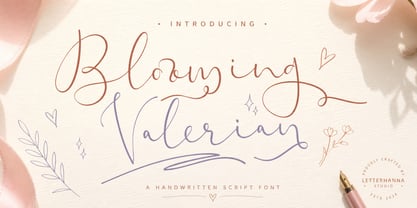
Blooming Valerian
by Letterhanna Studio
The Blooming Valerian Font Family was designed by Rinaldo Hasibuan and published by Letterhanna Studio. Blooming Valerian contains 1 styles.
Blooming Valerian is a thin handwritten calligraphy font with beautiful curves, the slightly wide spacing makes this font look very elegant. Blooming Valerian is a romantic and sweet calligraphy typeface with characters that dance along the baseline. It will add a luxury spark to any design project that you wish to create! This font is PUA encoded which means you can access all of the amazing glyphs and ligatures with ease!
Letterhanna Studio is a font designer from Yogyakarta, Indonesia, we specialize in handwritten script fonts, including lettering fonts, calligraphy fonts and brush fonts. Our fonts are carefully crafted to mimic natural handwriting, with a variety of ligatures so that each glyphs looks unique. Our fonts equipped with swashes to use as the beginning or ending swash of a word, and also equipped with underline swashes.